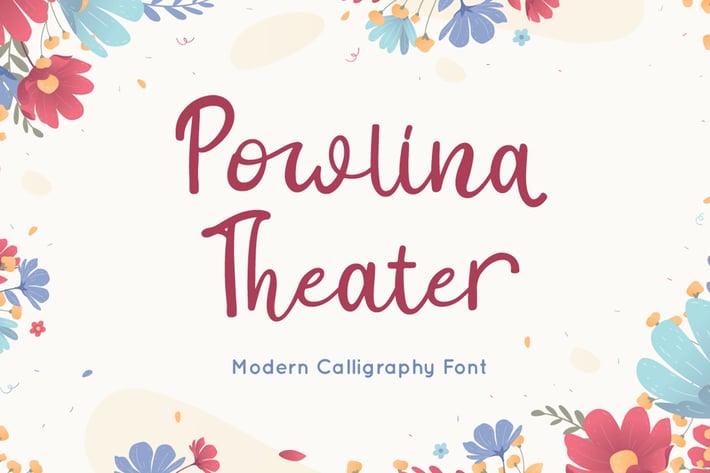
Powlina Theater - Instagram Font
Powlina Theater is a Modern Calligraphy Font. Perfect font for your wedding ceremony.
Combine Powlina Theater stylistic set to create amazing script font for wedding!
Fall in love with its incredibly versatile style and use it to create spectacular designs!
Powlina Theater is perfect for branding, logo, invitation, quotes, wedding invitation, cricut font, silhouette font, product packaging, merchandise, game titles, cute style design, Book/Cover Title and more.